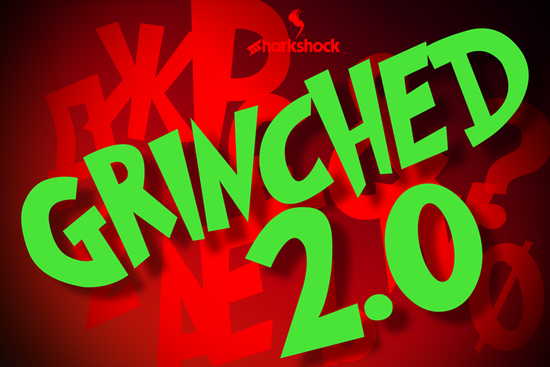
If you design holiday cards, seasonal merch, or party decor, you know that finding the right display font can make or break a project. The Grinched 2.0 Font delivers exactly what its name suggests a playful, slightly mischievous letterform that echoes the look of classic Christmas stories without being a direct copy. It brings a hand-drawn, whimsical edge to titles, headlines, and large-format prints, making it a go-to choice for anyone who wants to add personality to winter-themed designs. With full European accents, automatic ligatures, and support for both Cyrillic and Greek characters, this typeface fits projects that need to reach a global audience or simply stand out in a crowded marketplace.
What Makes the Grinched 2.0 Stand Out for Christmas Projects?
Many holiday fonts feel overly polished or rely on predictable snow-capped letters. Grinched 2.0 takes a different route. Its letter shapes have the uneven, slightly stretched quality of hand-drawn lettering, giving designs a warm, approachable feel. The built-in ligatures smooth out common letter pairs like “ch,” “th,” and “st,” so text flows naturally even at large sizes a detail that print-on-demand sellers especially appreciate when creating t-shirt designs or wooden signs. The uneven baseline and quirky terminals feel spontaneous without sacrificing readability, so the font works not just for Christmas cards but also for book covers, YouTube banners, party invitations, and any project that calls for a cheerful, holiday-adjacent mood.
Does The Grinched 2.0 Font Support European, Cyrillic, and Greek Characters?
Yes, and that’s a practical advantage if you serve customers across different languages. The vowel options include all necessary European accents which means words like “müsli,” “café,” or “årets jul” display correctly. If you’re designing for communities that use Cyrillic script (Russian, Bulgarian, Serbian) or Greek, the full character set keeps your typography consistent without forcing you to mix in a secondary font. This multilingual support is especially useful for small businesses that sell digital products on international marketplaces, or for crafters who create personalized ornaments and tags for a diverse customer base.
Ligatures further refine the reading experience. Instead of awkward gaps between letters, Grinched 2.0 automatically substitutes contextual letter combos that look more natural. This not only smooths out headlines but also helps maintain the hand-lettered illusion, which matters when you’re charging a premium for custom printed items.
How Do Crafters and Small Businesses Use This Display Font?
Creative entrepreneurs reach for the Grinched 2.0 family for a wide range of applications:
- Holiday apparel and mugs: Print-on-demand sellers use it for funny Christmas slogans, pajama sets, and ceramic mug designs where the playful lettering grabs attention.
- Scrapbooking and cardmaking: Hobbyists cut titles from adhesive vinyl or use the font in digital layouts to create scrapbook pages, gift tags, and party decorations.
- Seasonal branding: Small bakeries, coffee shops, and boutiques apply it to window signs, social media graphics, and limited-edition packaging during the holiday period.
- Educational materials: Teachers and content creators use the font for worksheet headings and classroom displays, since the distinct shapes feel festive without being hard to read.
Because the font includes Cyrillic and Greek characters, it even works for dual-language holiday promotions or church bulletins that need to switch between scripts in the same layout.
What Fonts Pair Well With a Grinch-Inspired Typeface?
While Grinched 2.0 steals the spotlight on its own, smart pairing makes a design feel more polished. A contrasting sans serif for body copy keeps small text clear and balances the decorative header. For example, the clean lines of Designer font offer a neutral, modern counterpoint that doesn’t compete with the quirky display lettering. If you’re building a retro Christmas sign or a vintage-style event poster, the split-flap feel of Departure Board creates a nostalgic travel vibe that sits surprisingly well beside Grinched 2.0’s hand-drawn shapes.
For projects that need a touch of warmth, Sunspell brings a fluid, folksy script that can serve as supporting text for subheadings or short phrases. And if you’re designing something that will eventually head into a summer-themed collection, keep Laguna Tropic in mind its breezy, tropical style demonstrates how a versatile display font library can cover different seasons without losing personality. Mixing these fonts thoughtfully helps you build a recognizable brand look across product lines.
Where Can You Get the Grinched 2.0 Font and What Should You Check First?
You can find Grinched 2.0 on Creative Fabrica, and the license usually covers commercial use, which is crucial when you sell physical or digital products. Before you buy, test the font preview with the exact phrase you plan to use, especially if your text includes unusual letter pairs or accented characters. Confirm the EULA covers print-on-demand sales if that’s your business model, and look at the glyphs panel to see all the ligatures and alternate characters you’re getting. Taking five minutes to check these details can save you from surprises once a design goes live.
Once installed, start by typing out your headline at the size you’ll use on the final product some display fonts look different at 12 pt versus 72 pt. Adjust letter spacing slightly if the ligatures feel too tight, and always print a sample if your product is physical. A font that looks great on screen might need inking adjustments for a crisp result on cotton or wood.
A few minutes of testing upfront makes sure the Grinched 2.0 Font delivers that whimsical, professional result your customers expect.